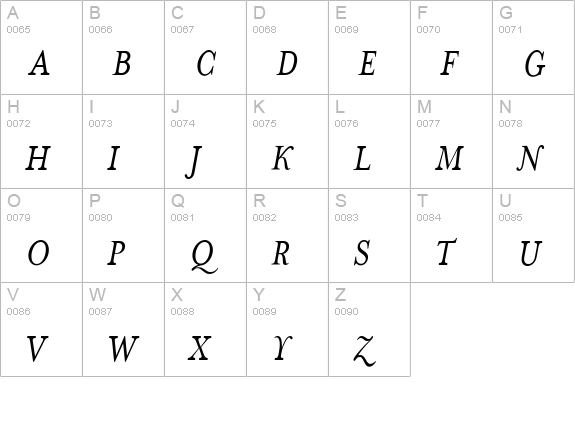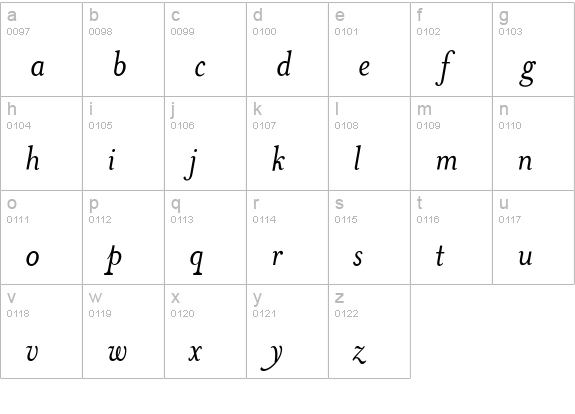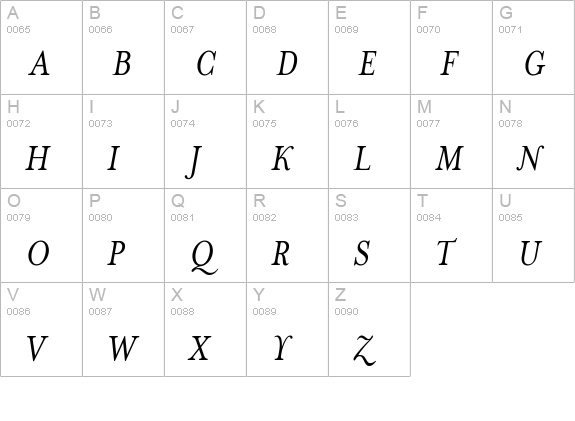
MrsEaves-Italic is a distinctive, italic variant in the MrsEaves typeface family \xE2\x80\x94 well suited to design and typography projects.
MrsEaves-Italic font is a graceful and elegant typeface that exudes sophistication and charm. Its delicate serifs and flowing curves lend a timeless quality to any design project. Perfect for adding a touch of refinement to invitations, branding materials, and editorial layouts, this font is sure to make a lasting impression. The best part? MrsEaves-Italic font is available for free download at FontsMarket.com. Whether you're a designer looking to expand your font library or simply want to experiment with a new style, this typeface is a versatile and beautiful choice. Don't miss out on the opportunity to enhance your projects with the beauty of MrsEaves-Italic font – download it today and bring a touch of elegance to your designs.